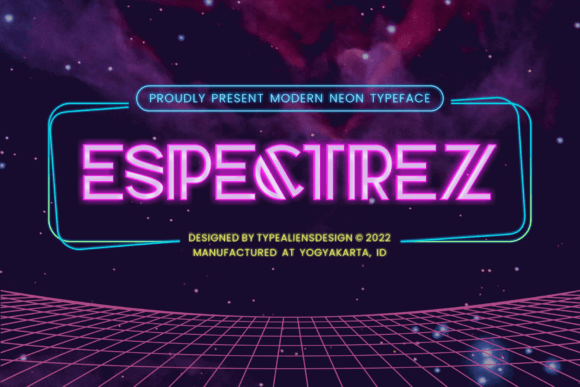
Journey to the cosmos with Espectrez, a font that captures the brilliance of neon signage, igniting your designs with an otherworldly aura. Immerse yourself in the captivating display of light, where each letter dances with vibrancy and energy, transcending the boundaries of ordinary typography. Experience the electrifying fusion of classic sans serif and modern aesthetics, delicately outlined and meticulously crafted to emulate the allure of neon artistry.
With Espectrez, embrace the limitless possibilities of creativity, where your designs transform into radiant masterpieces. Let your imagination soar through the galaxies, embarking on a voyage of futuristic brilliance. Unleash the power of Espectrez, the ultimate font for long text, and witness your words illuminate the digital landscape.
Harness the allure of Espectrez, and transcend the boundaries of design. Engage your audience with captivating headlines that shimmer like distant stars, illuminating the essence of your message. Craft paragraphs that flow like rivers of light, guiding your readers on an immersive journey through your narrative. Embrace the power of Espectrez, and leave an indelible mark on the hearts and minds of your audience.
Dare to break free from the mundane and embrace the extraordinary with Espectrez. Let your designs radiate with the brilliance of a thousand suns, casting a spellbinding aura that captivates and enthralls. Ignite the spark of inspiration and watch as your creativity knows no bounds, fueled by the boundless energy of Espectrez.